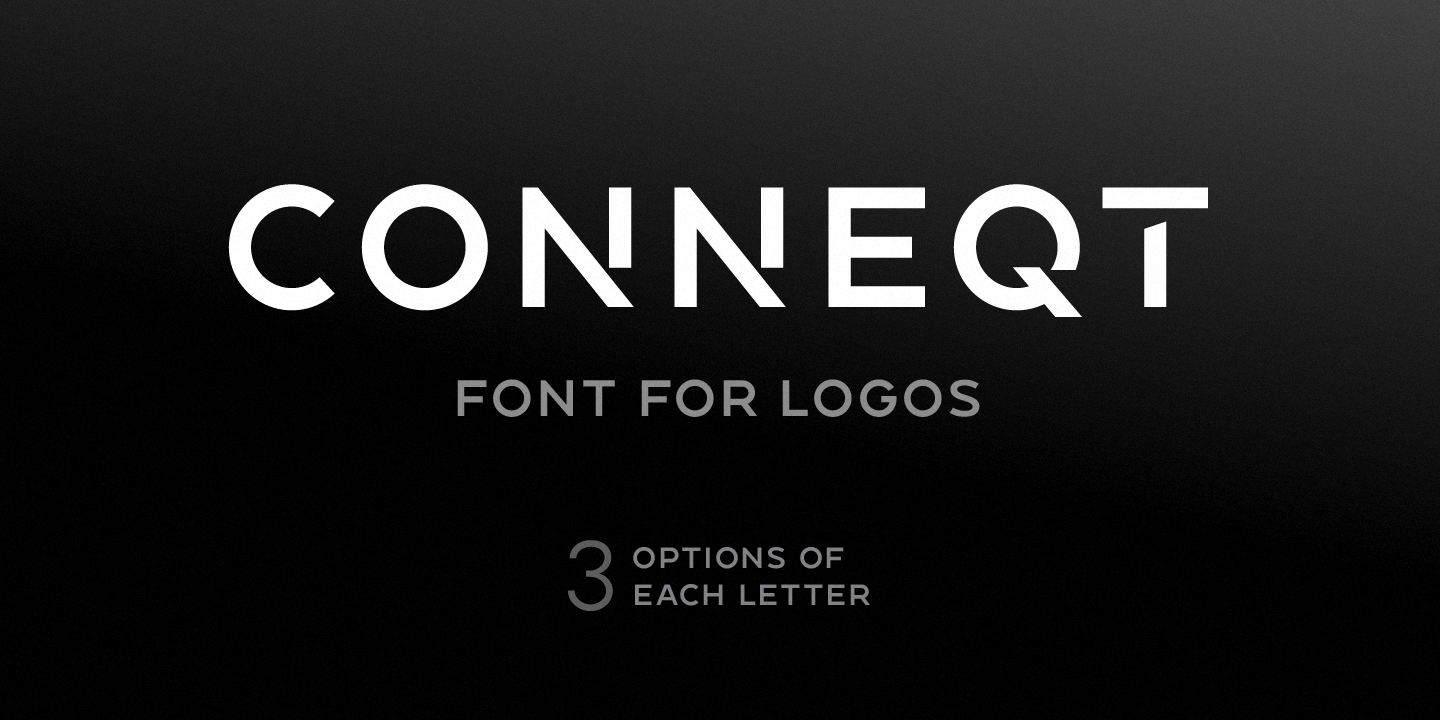
Ideal for tech startups, branding, websites, user interfaces, advertising, and editorial projects, Conneqt Font Free Download provides a clean and professional aesthetic that enhances readability and engagement.
What makes this font exciting is its balanced geometry combined with subtle curves, creating a friendly yet authoritative presence that suits a wide range of design applications.
The Conneqt font family includes multiple weights such as Light, Regular, Medium, Bold, and Italic, offering extensive flexibility for detailed typographic hierarchies and modern layouts.
If you want to boost your projects with a contemporary and polished font, Conneqt Font Free Download is an excellent choice. Download it today, test its smooth lines, and let your designs connect with clarity and style.